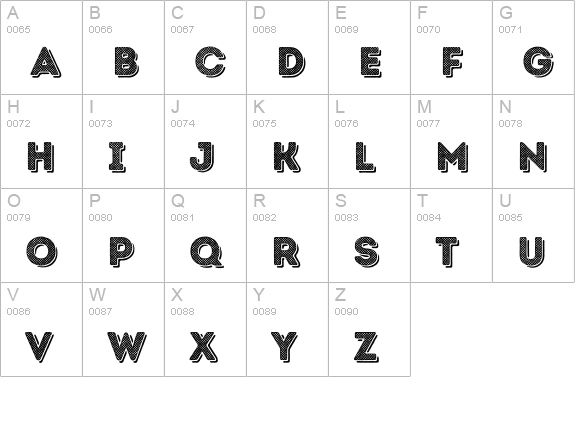
Intro Rust H1 Base Shade Font Details
The Intro Rust H1 Base Shade font is a striking display typeface that exudes a sense of boldness and modernity. Its unique design features strong, geometric letterforms with a touch of industrial flair, making it perfect for creating eye-catching headlines and branding materials. This font is sure to make a statement and leave a lasting impression on any design project. What's even better is that the Intro Rust H1 Base Shade font is available for free download at FontsMarket.com. Now you can easily access this distinctive font and incorporate it into your creative projects without any hassle. Whether you're working on a poster, logo, or website design, this font is sure to elevate your work and make it stand out from the crowd. Don't miss out on this opportunity to add a touch of modern sophistication to your designs with the Intro Rust H1 Base Shade font.